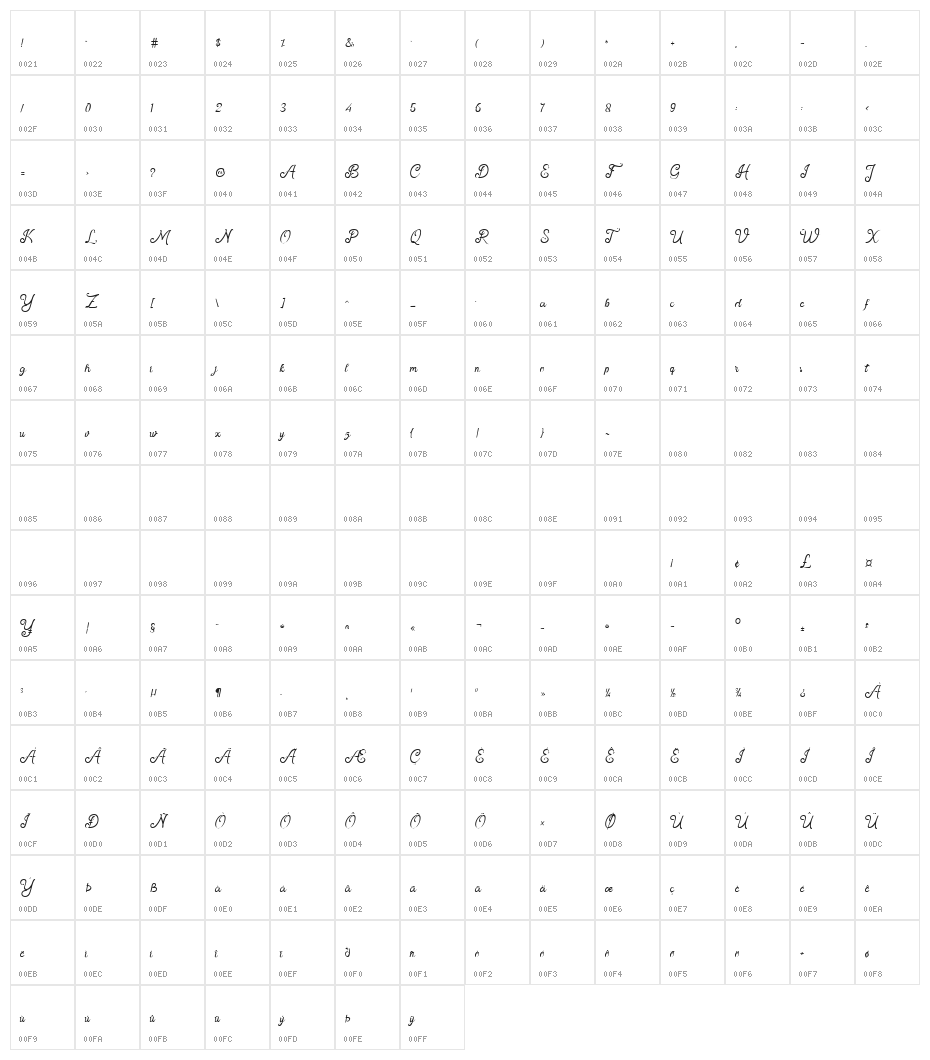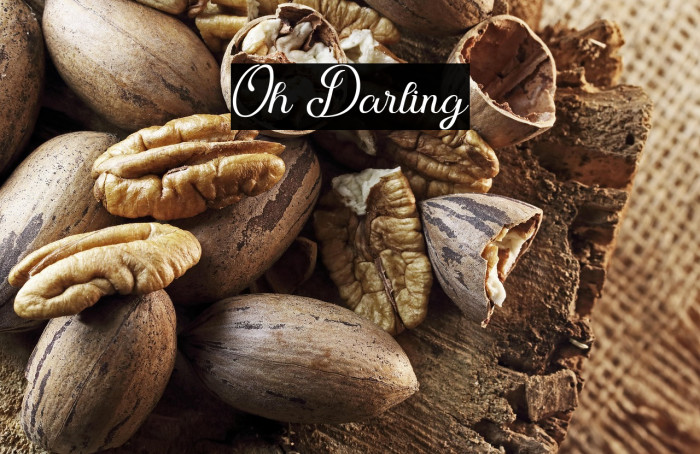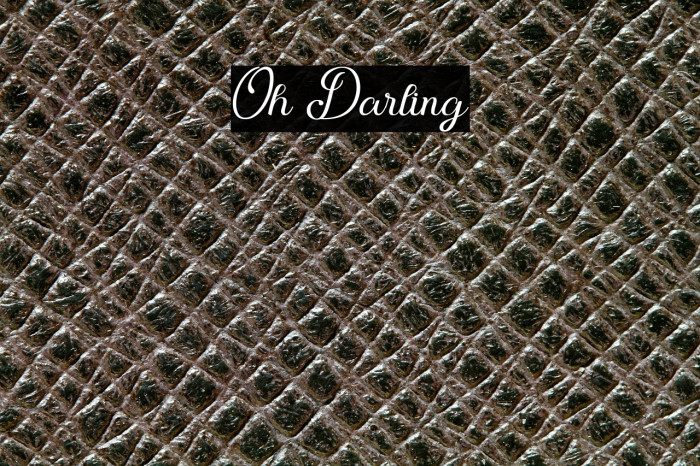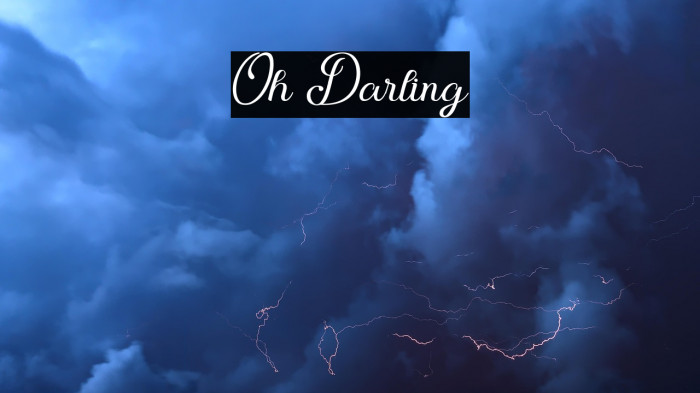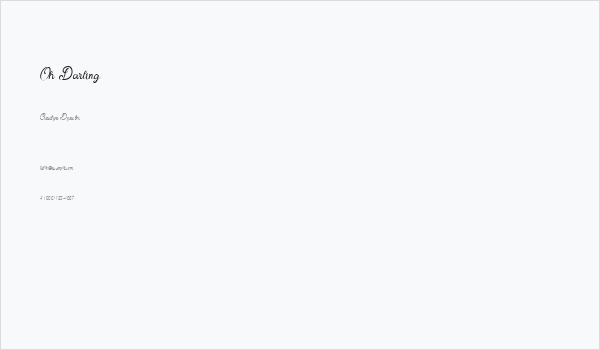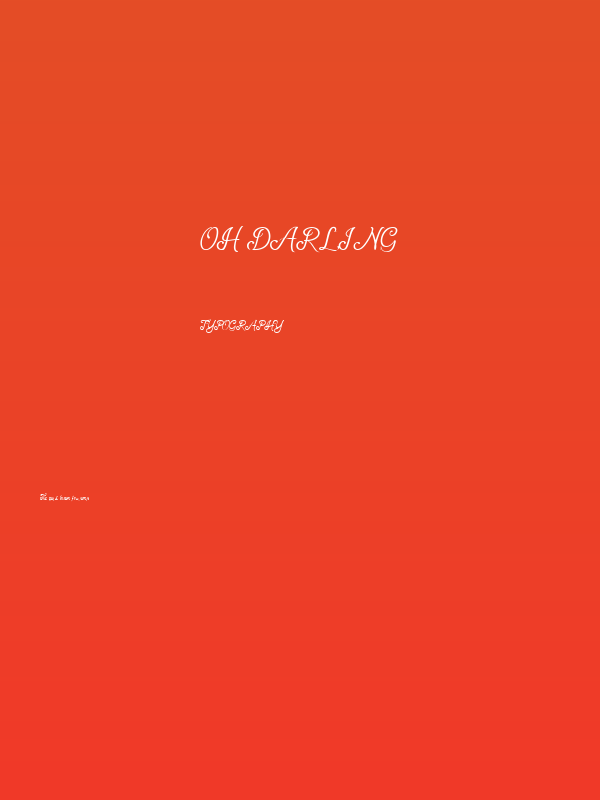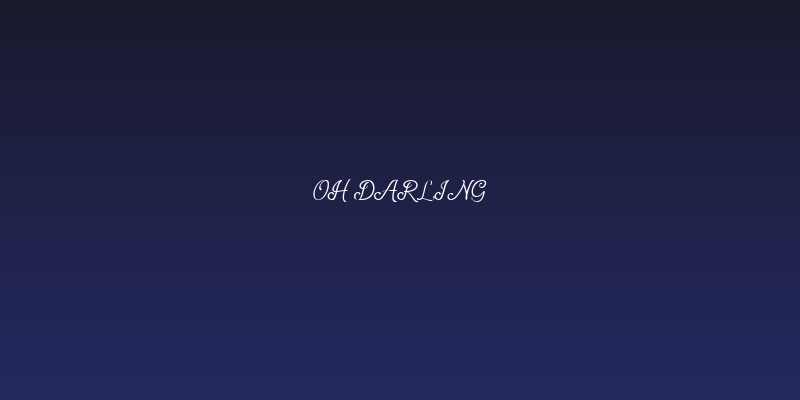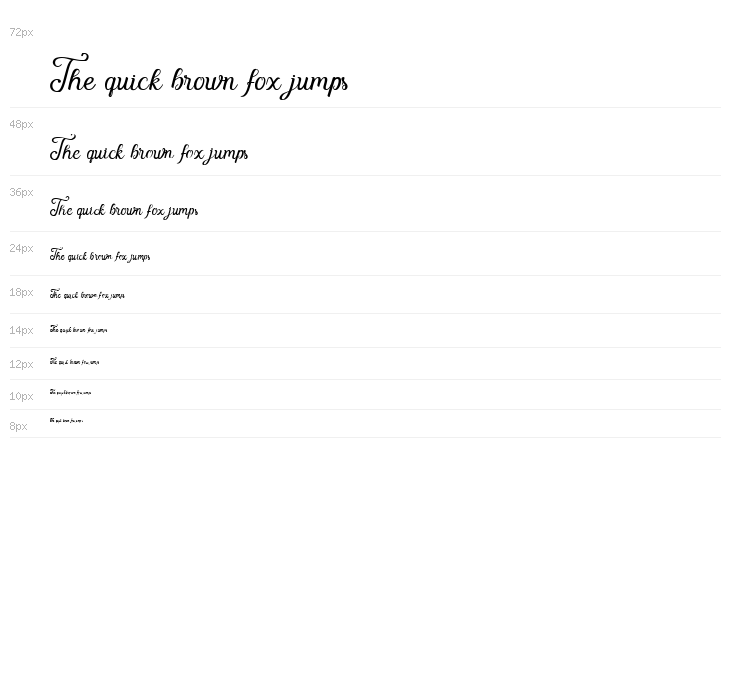
Oh Darling Font
Oh Darling Description
This elegant script font features flowing, cursive letterforms that exude a sense of sophistication and grace. The uppercase letters are characterized by their intricate loops and swirls, providing a decorative flair that is both eye-catching and refined. The lowercase letters maintain a consistent style, with smooth, connected strokes that enhance readability while preserving the font's artistic nature. The numerals and special characters are designed to complement the overall aesthetic, ensuring a cohesive look across all text elements. This font's delicate and stylish appearance makes it ideal for projects that require a touch of elegance and charm.
| Overall Style | Elegant, Decorative |
| Proposed Projects | Ideal for wedding invitations, greeting cards, branding, and elegant packaging designs. |